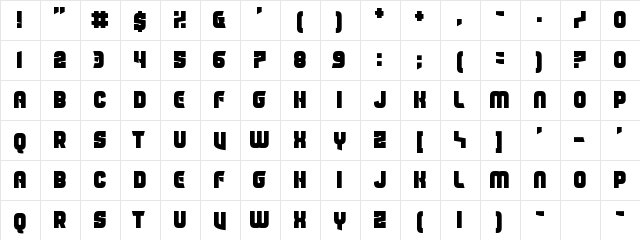
Charge Off Regular
Design Context for Charge Off Typeface
Charge Off is a composed and adaptable typeface that performs quietly and consistently across a wide range of design contexts.